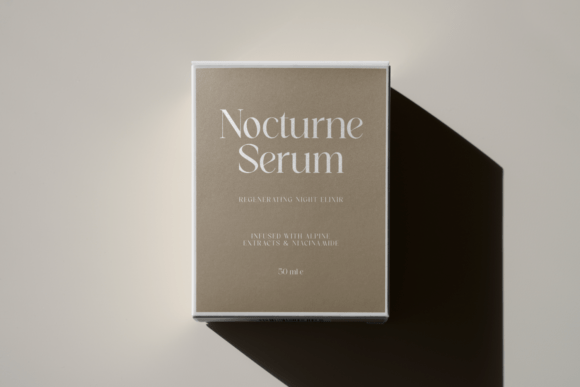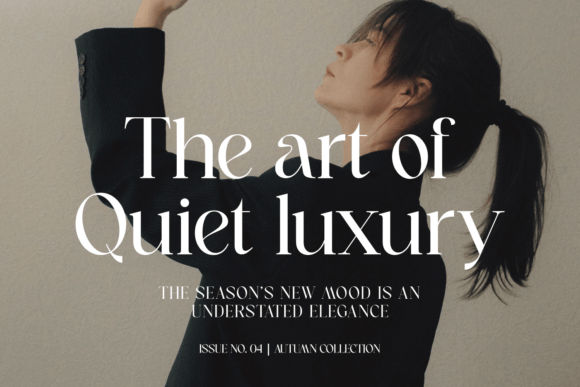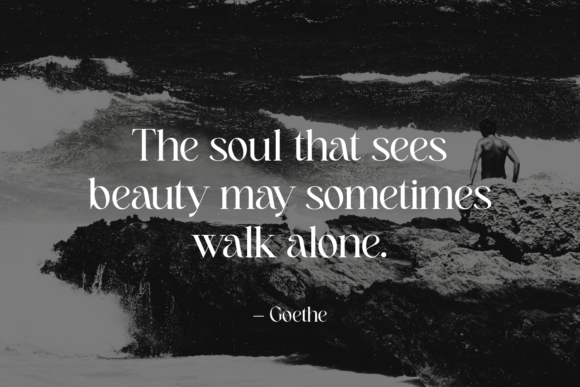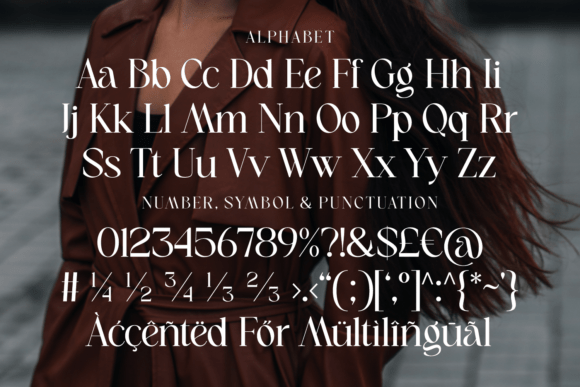
Introduction to Moguela Font
As a designer, there’s nothing quite like the thrill of discovering a new font that elevates your creative project to new heights. For me, that moment came when I stumbled upon the Moguela Font – a masterclass in high-fashion typography that has since become my go-to choice for all things luxury and refined. With its unique blend of traditional serif and contemporary edge, this font exudes a quiet sophistication that’s simply irresistible.
Whether you’re working on a high-end branding project, crafting a bespoke magazine layout, or designing premium packaging for a skincare brand, Moguela Font is the ultimate design resource. Its exquisite contrast between delicate hairlines and substantial stems creates a visual rhythm that’s both elegant and authoritative – making it the perfect choice for designers who demand the very best.
Key Features of Moguela Font
- High-quality design resource ideal for creative projects, including digital art and graphic design.
- Includes a range of characters, including uppercase and lowercase letters, numbers, and special characters.
- Designed with a unique, modern aesthetic, making it a great choice for designers looking for a distinctive font.
Honest Review: Moguela Font
I recently had the chance to work with the Moguela Font, and I must say it’s a great addition to any design resource library. The font is perfect for creative projects that require a unique touch.
One of the standout features of the Moguela Font is its high quality and versatility. It’s great for both digital and print designs, and its transparent background makes it easy to use with any background image or color.
Here are some things that work well with the Moguela Font:
- Unique and elegant design
- High quality and crisp typography
- Perfect for creative projects, such as logos, branding, and packaging
- Limited character set, which may not be ideal for long-form text
- No bold or italic font styles available
- May not be suitable for projects that require a lot of text formatting
Overall, I’m impressed with the Moguela Font. It’s a great free download that’s perfect for designers looking for a unique and high-quality font. While it may have some limitations, it’s definitely worth considering for your next creative project.
Moguela Font
The Moguela Font is a versatile design resource that can be used in a variety of creative projects, including logos, posters, and infographics. Its transparent background makes it easy to use in designs that require a high level of customization.
Alternatives to Moguela Font
Alegreya is a high-quality serif font designed for use in creative projects where a sophisticated, elegant look is desired. It features a transparent background, making it perfect for use in backgrounds and overlays. Alegreya is ideal for designers who need a font that exudes professionalism and style. Compared to Moguela Font, Alegreya has a more classic and traditional feel, while Moguela Font has a more modern and playful vibe.
Montserrat is a popular sans-serif font designed for use in modern creative projects where a clean and minimalist look is desired. It features a transparent background and is available for free download, making it a great design resource for designers on a budget. Montserrat is ideal for designers who need a font that is easy to read and versatile. Compared to Moguela Font, Montserrat has a more modern and urban feel, while Moguela Font has a more whimsical and artistic vibe.